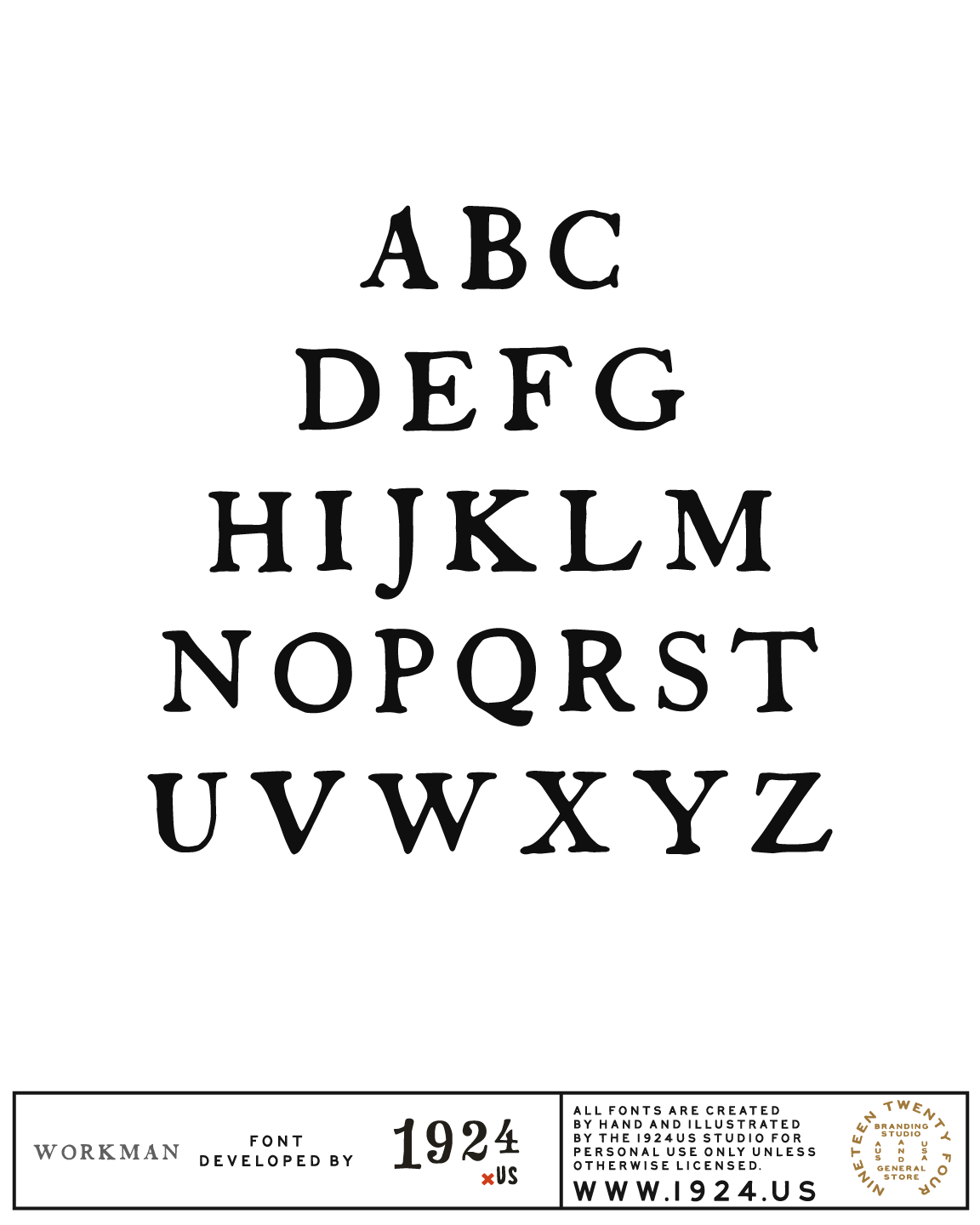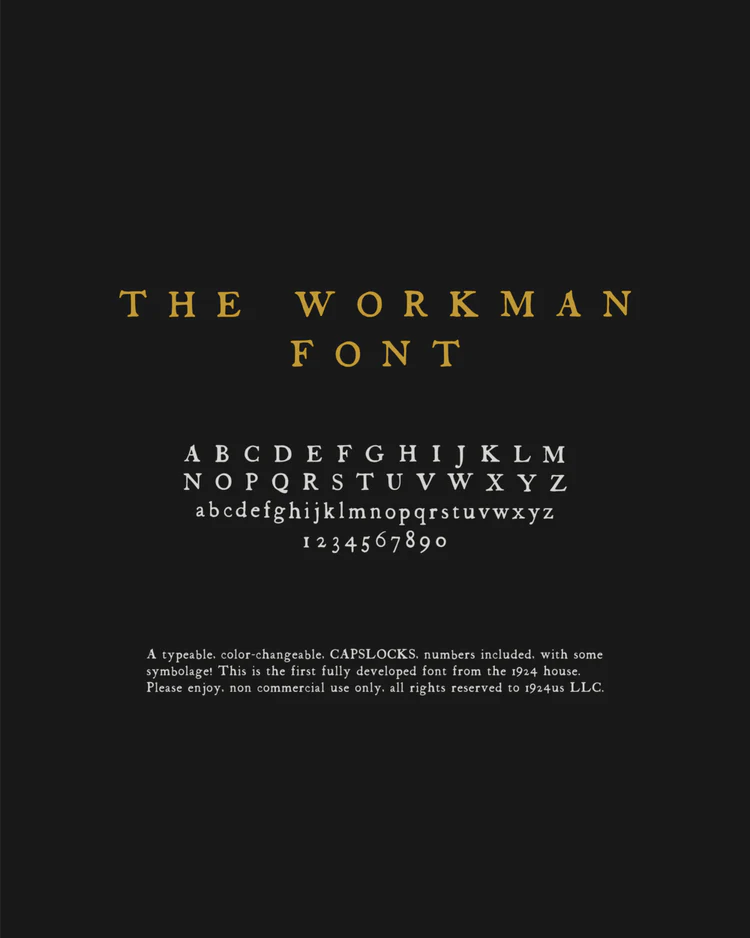
Workman Font by 1924us
Hey guys! This is our first ever fully developed font, based loosely on an antique font from 1883, this was created to be super easy to use and fun to create with. You can do all sorts of things with it, its super easy to install! For help installing most answers can be easily googled, or if you have a specific request you can email us at . We hope you enjoy! The 1924 team.